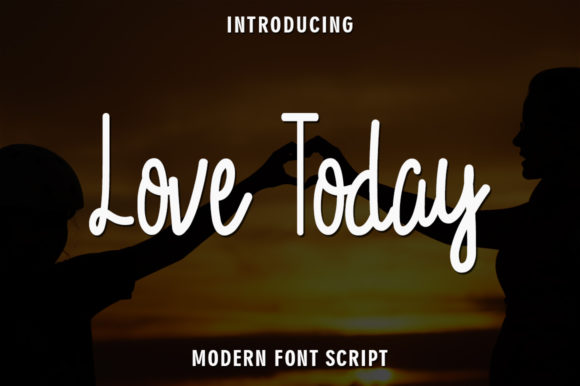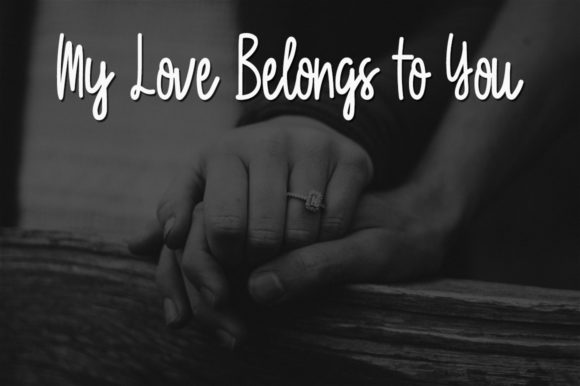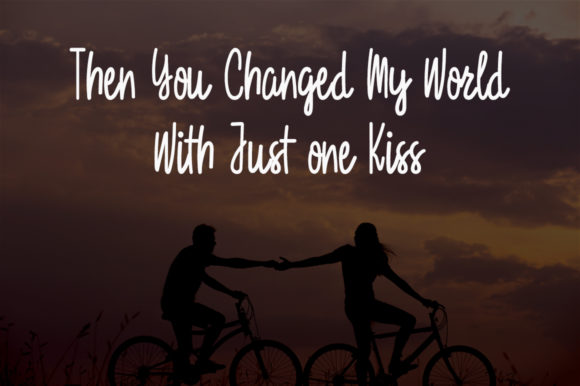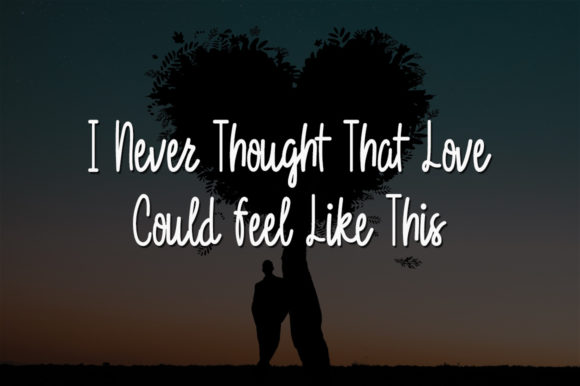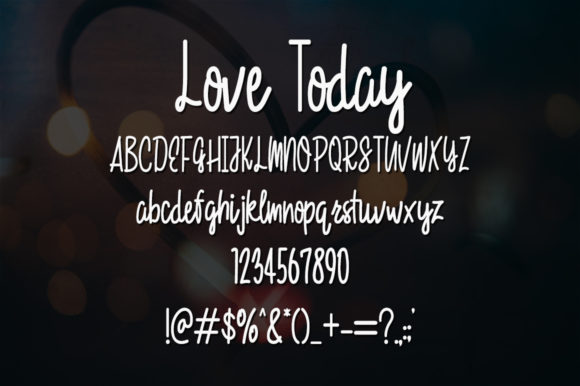
Love Today Font
About Love Today Font
Love Today is a beautiful and natural handwritten font. Delicate and sweet, this font will make each of your creative ideas look lovely!